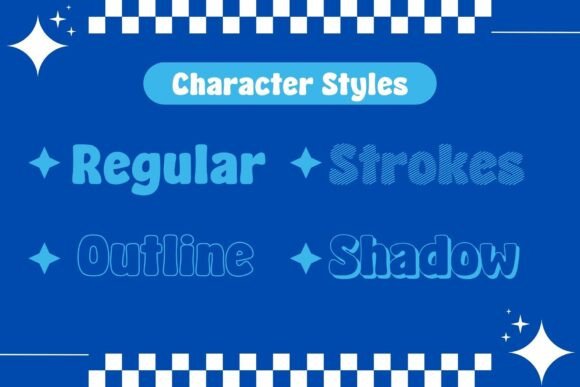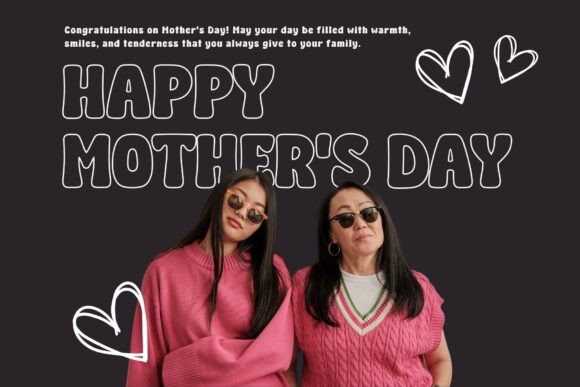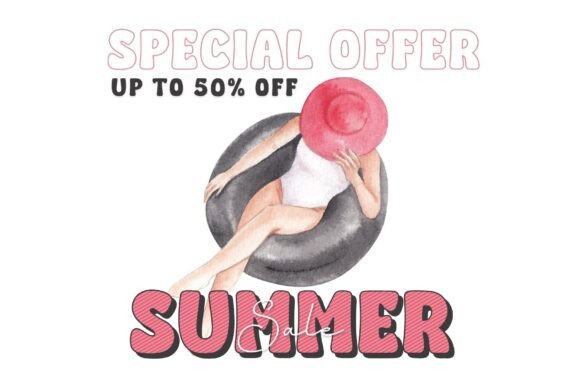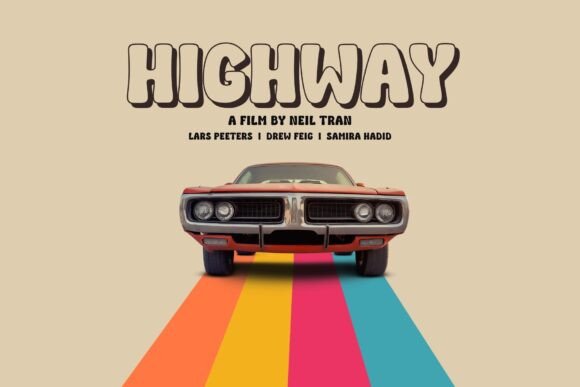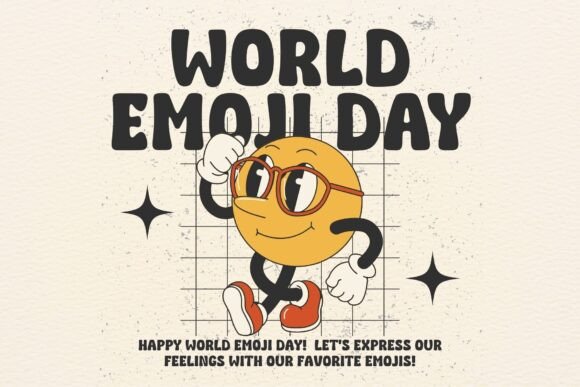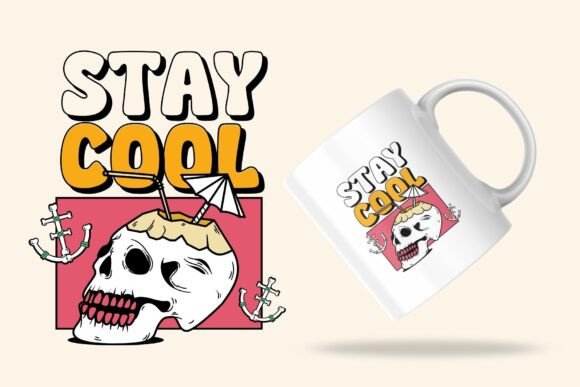
Get Ready to Pop Some Color into Your Designs!
Who doesn’t remember the excitement of strolling through a candy shop as a kid, surrounded by the vibrant colors and playful scents of sugary treats? For many of us, those memories are still cherished today. And what if we told you that you could recapture that same joyful feeling in your designs with the Fox Gumball Font?
This playful font family is inspired by the whimsy of retro cartoons, vintage fun, and classic candy shops. With its smooth curves and chunky forms, Fox Gumball brings cheerful energy to any project, making it the perfect choice for designers looking to add a pop of personality to their work. Whether you’re designing kids’ packaging, logos, posters, or playful branding, Fox Gumball Font is the perfect tool to bring a nostalgic sweetness to your creations.
Fox Gumball Font Key Features
- Unique Characteristics: Fox Gumball Font features a distinctive, childlike style with bold lines and playful letterforms, making it ideal for children’s books, educational materials, and other applications where a fun, approachable tone is desired.
- Font Weight: Fox Gumball Font is available in regular and bold weights, allowing for flexibility in designing text and titles.
Designer Review: Fox Gumball Font
Overall, I think Fox Gumball Font has some great qualities, but it also has some limitations that make it less suitable for certain projects.
- Unique and playful design: Fox Gumball Font has a distinctive look that’s sure to grab attention.
- Fun for children’s content: The font’s playful feel makes it perfect for kids’ books, games, and other projects.
- Highly legible: Despite its whimsical design, Fox Gumball Font is surprisingly easy to read.
- Not suitable for formal content: Fox Gumball Font’s playful design may not be suitable for formal or professional projects.
- Limited versatility: The font’s design may not work well for projects that require a more serious or sophisticated tone.
- Not ideal for body text: Fox Gumball Font is best used for headings or titles, as its playful design may not be suitable for large blocks of body text.
Overall, Fox Gumball Font is a great choice for projects that require a playful and attention-grabbing design. However, it may not be the best fit for more formal or serious projects.
Getting the Most Out of Fox Gumball Font
Here are some tips for getting the most out of Fox Gumball Font:
- Use it for playful and whimsical designs.
- Pair it with bold and bright colors for maximum impact.
Here are some common use cases for Fox Gumball Font:
- Children’s book covers and illustrations.
- Playful website headers and footers.
- Fun and
Alternatives to Fox Gumball Font
Great Vibes is a modern, handwritten font that conveys a carefree and relaxed atmosphere. It’s perfect for designs that require a casual, friendly tone, such as advertising for a music festival or a summer clothing brand.
Comparison to Fox Gumball Font: While Fox Gumball has a more playful, childlike feel, Great Vibes is more mature and sophisticated. Great Vibes is also more versatile and can be used in a wider range of designs.
Carolyna Pro is a elegant, handwritten font that is perfect for designs that require a touch of sophistication and luxury. It’s ideal for high-end brands, such as fashion or jewelry companies.
Comparison to Fox Gumball Font: Carolyna Pro is more refined and polished than Fox Gumball, which is more playful and casual. Carolyna Pro is also more suitable for formal designs, while Fox Gumball is better suited for informal designs.